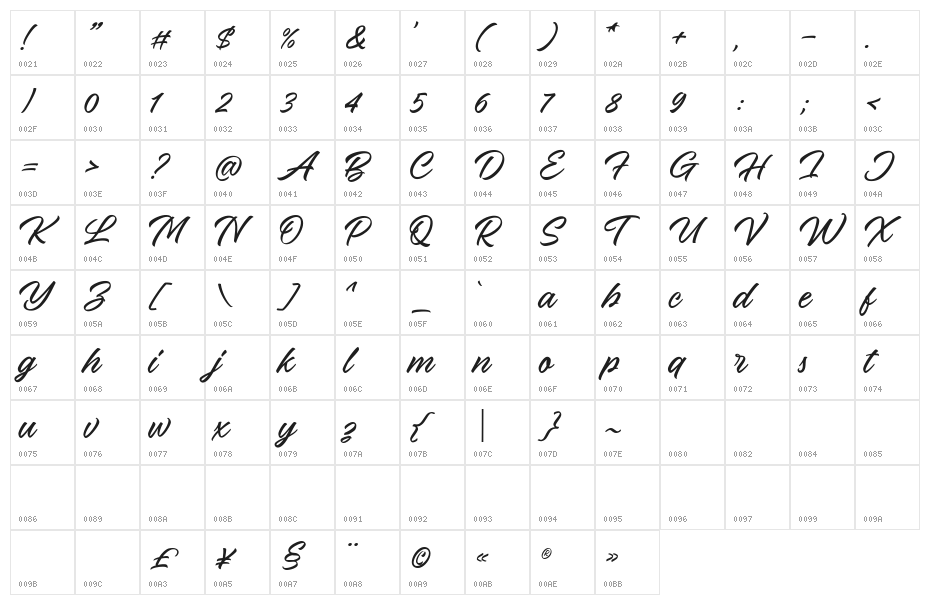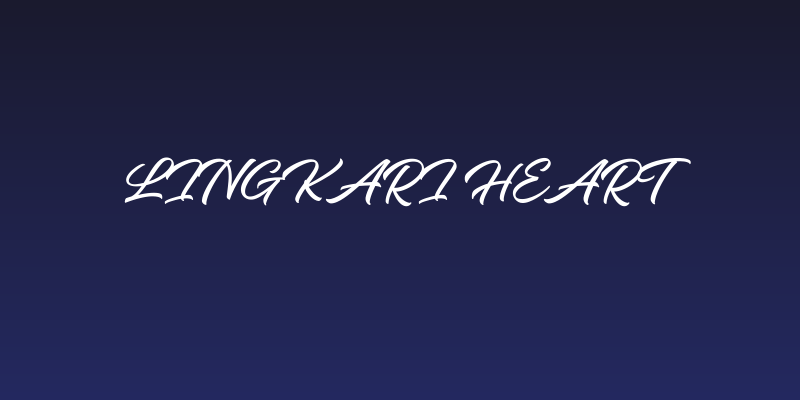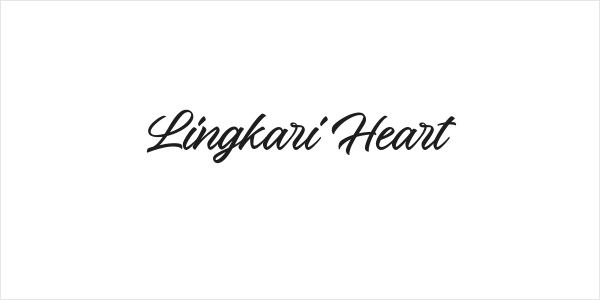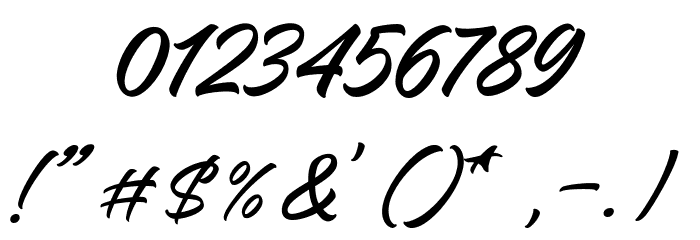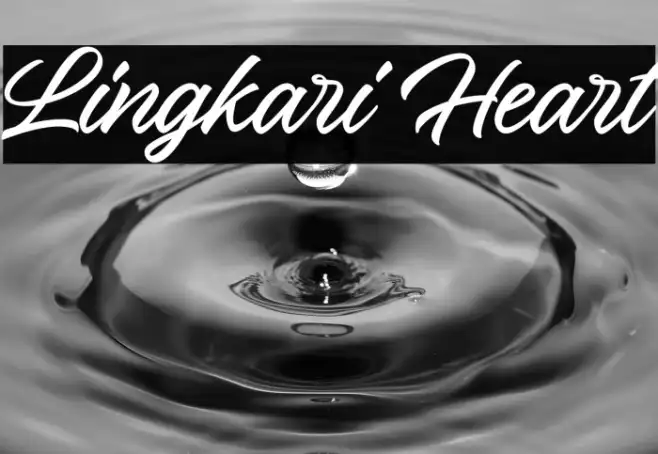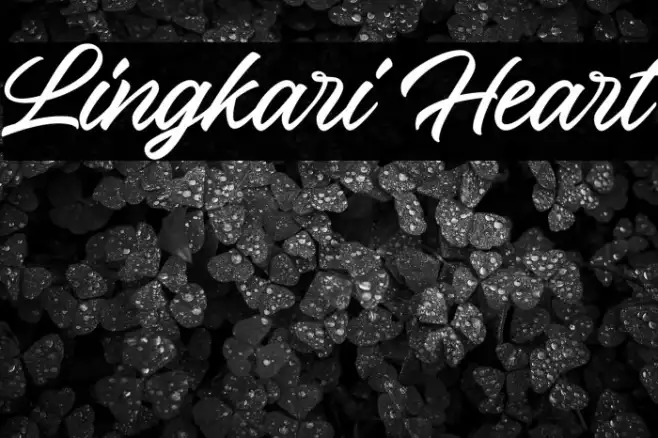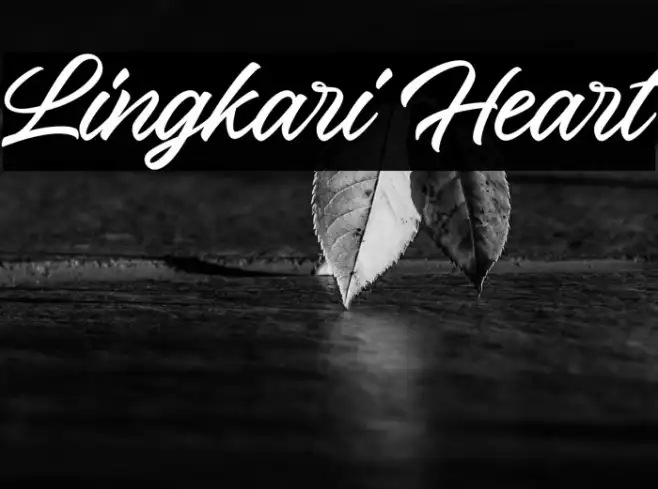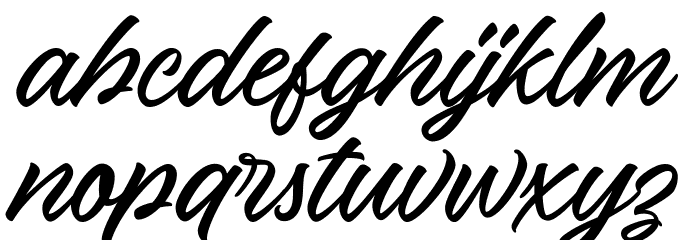
Lingkari Heart Font
Lingkari Heart Description
This font features a dynamic and flowing script style, characterized by its elegant and cursive letterforms. The uppercase letters are bold and sweeping, with a distinctive flair that adds a touch of sophistication. The lowercase letters maintain a consistent flow, with smooth connections between each character, enhancing the script's fluidity. Numbers are styled to match the overall cursive theme, providing a cohesive look. Special characters are thoughtfully designed to complement the alphabet, ensuring versatility in various design contexts. The font's bold strokes and artistic curves make it stand out, ideal for projects that require a touch of elegance and creativity.